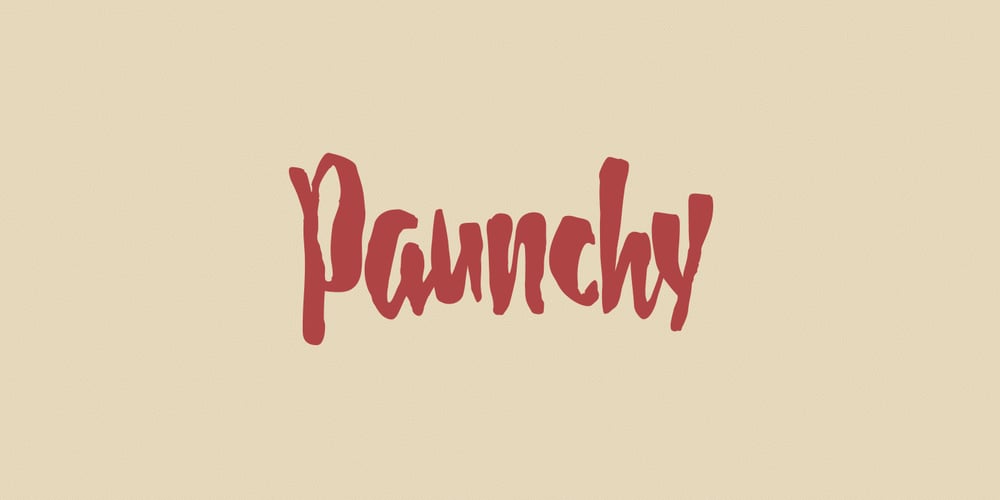
Paunchy
Paunchy font
Paunchy Font Family was designed by Mirco Zuchowski and published by Mirco Zett. Paunchy contains 1 styles and family package options. “Paunchy” is a playful and handlettered, calligraphy based font. Especially made for Logos and Headlines.